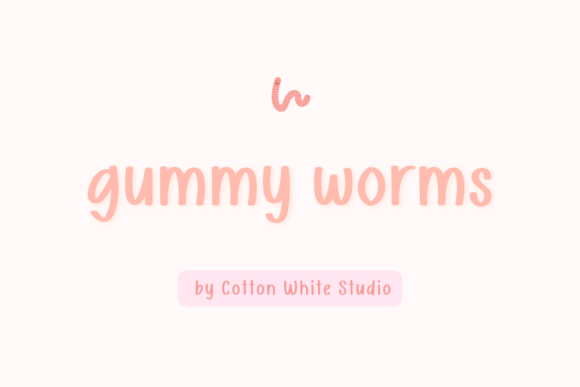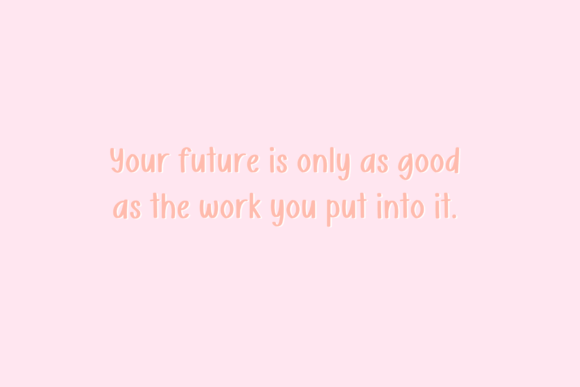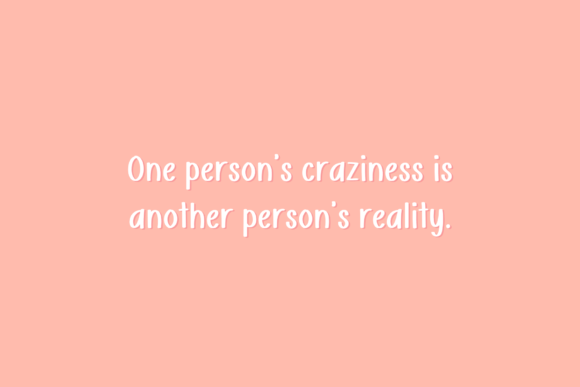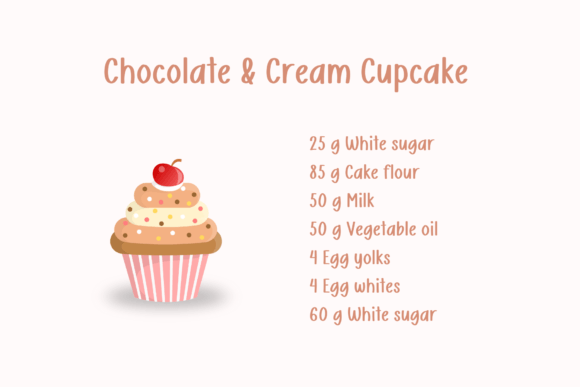
Gummy Worms Font: A Playful Handwritten Font for Cute Cricut Crafts
About the Gummy Worms Font
Add a touch of class to your work with the Gummy Worms Font, a truly exceptional typeface. You can use this font to jazz up your digital planner, journal, invitations, note-taking, or anything that requires a handwriting look. Or use it with your projects in Cricut, Adobe Illustrator, Photoshop, Canva Pro, Silhouette, Procreate, Affinity, Notability, GoodNotes, and more!
Gummy Worms Font’s playful, hand-drawn aesthetic is ideal for projects requiring a fun, approachable feel. It shines in short text applications like headlines, social media posts, logos for children’s products, or packaging for sweet treats. Avoid using it for lengthy body text or UI elements where legibility is paramount; its informal nature can hinder readability in larger blocks of text.
Pair Gummy Worms Font with a clean sans-serif like Open Sans for a balanced contrast, or a classic serif font such as Garamond for a touch of sophistication. For a more whimsical feel, consider pairing it with a script font like Pacifico, but use it sparingly to maintain visual clarity.
The font’s overall personality is undeniably cheerful and informal, making it unsuitable for projects demanding seriousness or professionalism. Its friendly energy, however, makes it perfect for brands targeting a younger demographic or those promoting products with a lighthearted image.